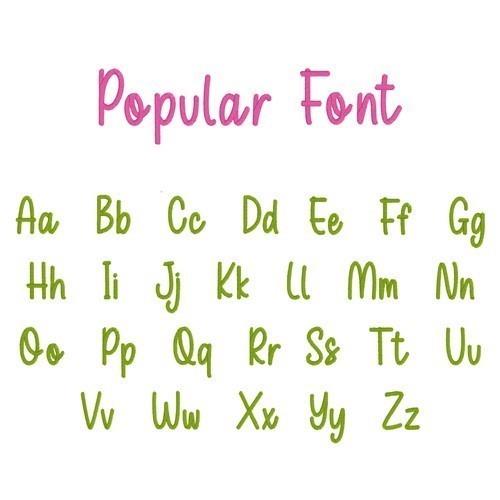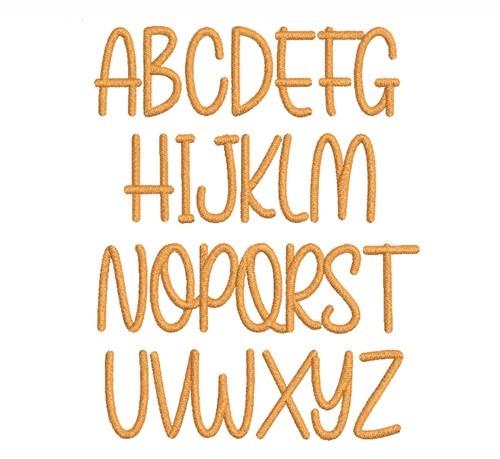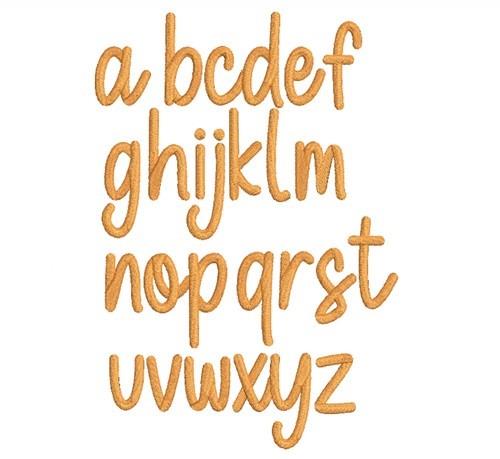
Popular - 11 Sizes Included Embrilliance by Maya Kreations and other embroidery fonts available at EmbroideryDesigns.com.
Playful script machine embroidery font showcases lowercase letters in a light green shade, perfect for casual decor on pillows or tote bags. Available in BX font and Embrilliance formats. 11 sizes included for versatile use.